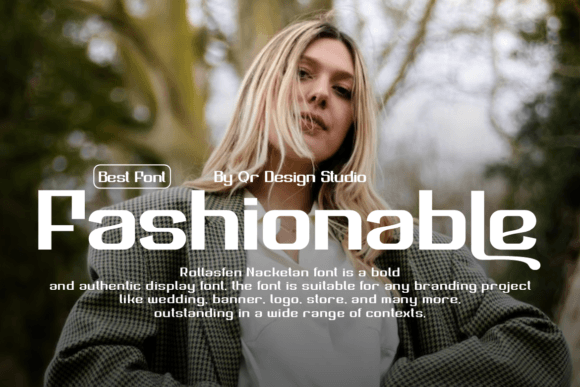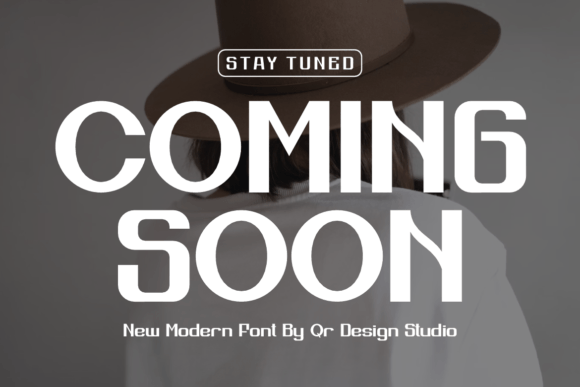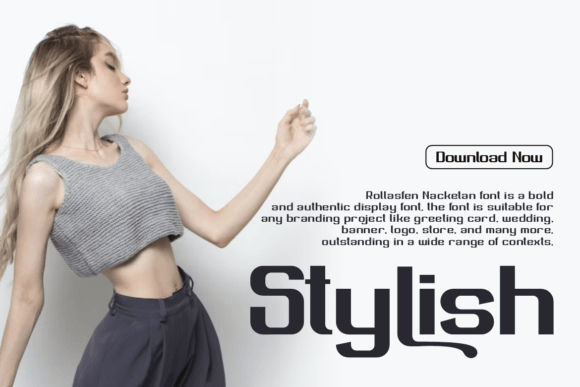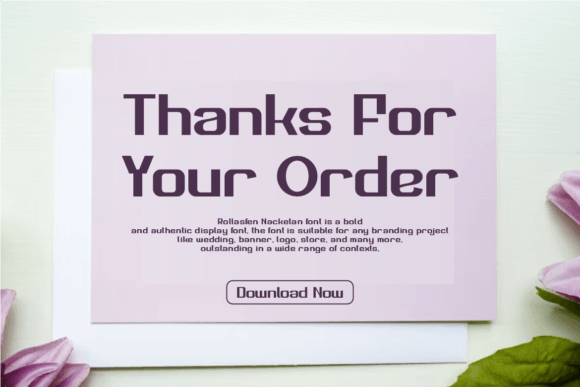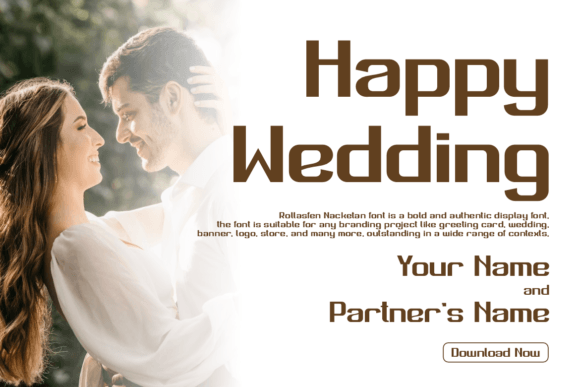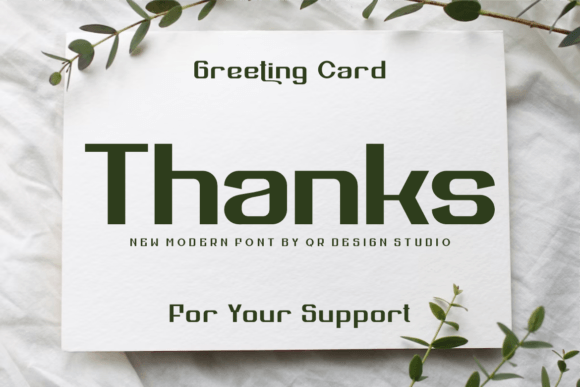
Introduction to Rollasfen Nacketan Font
Rollasfen Nacketan Font is a bold and authentic display font.
The font is suitable for any branding project like logos, weddings, fashion, sales, greeting cards, and many more Outstanding in a wide range of contexts.